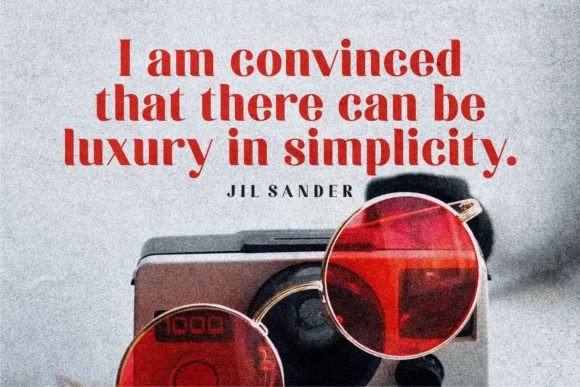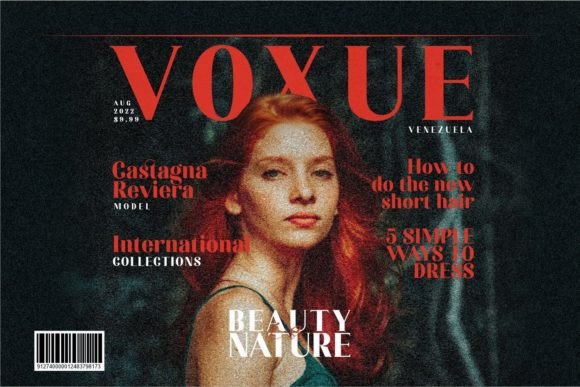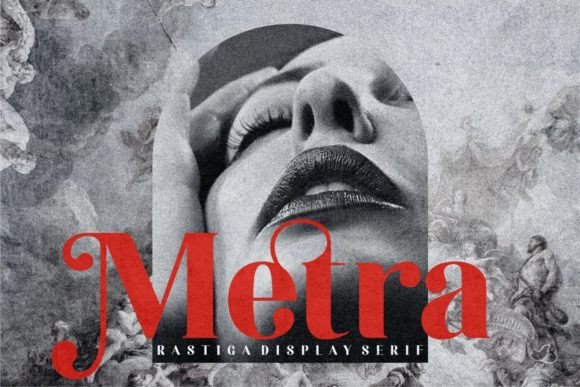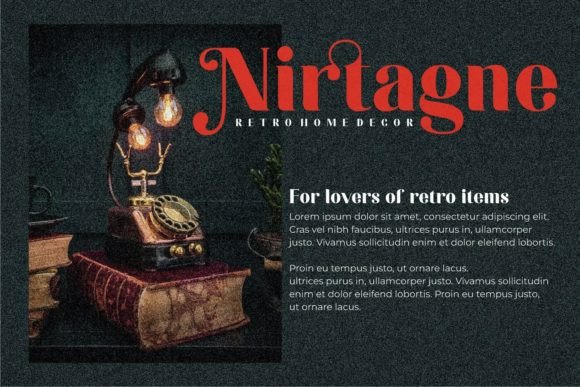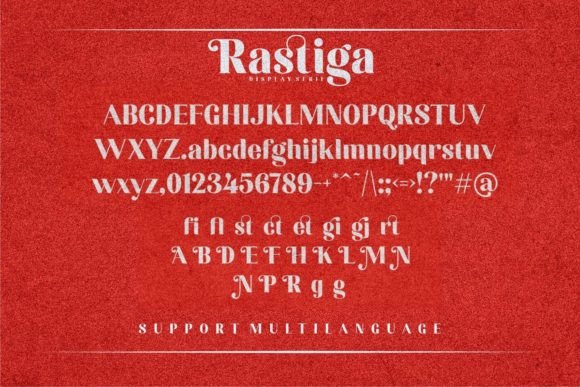
Introduction to Rastiga Font
Rastiga is a display serif font that looks bold and elegant with a retro touch.
With clear letter shapes that are easy to read with simple curves at the ends of the letters Rastiga is perfect for branding projects, logos, wedding designs, social media posts, advertisements, product packaging, product designs, labels, photography, watermarks, invitations, stationery, and any project that requires a display serif font.